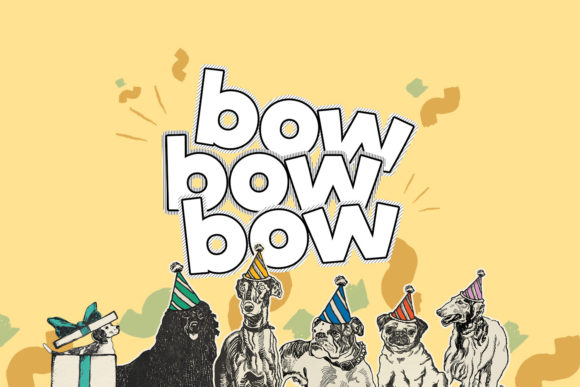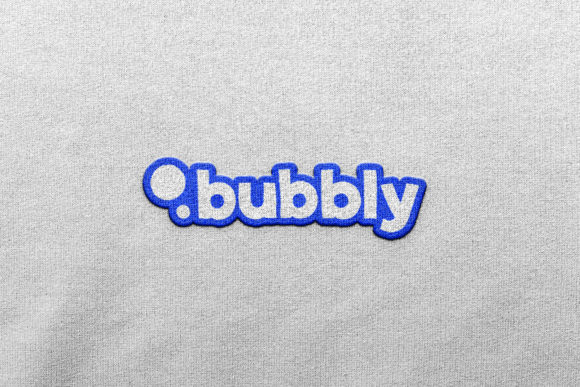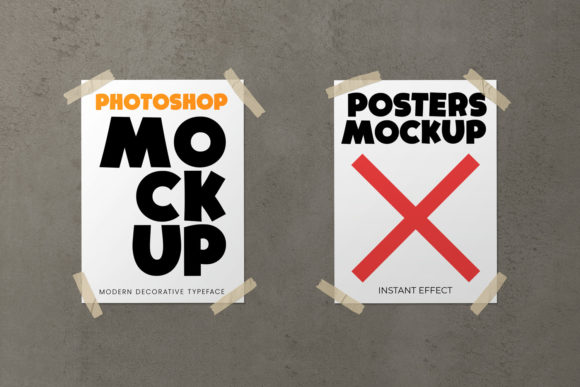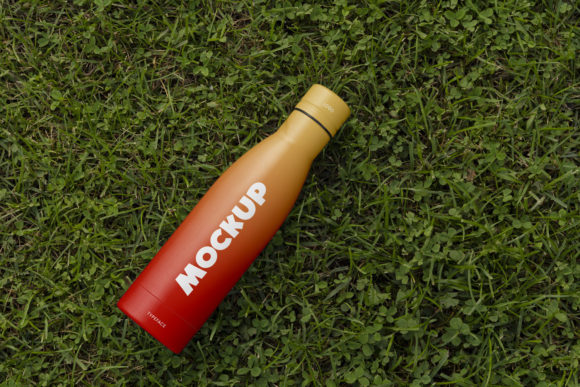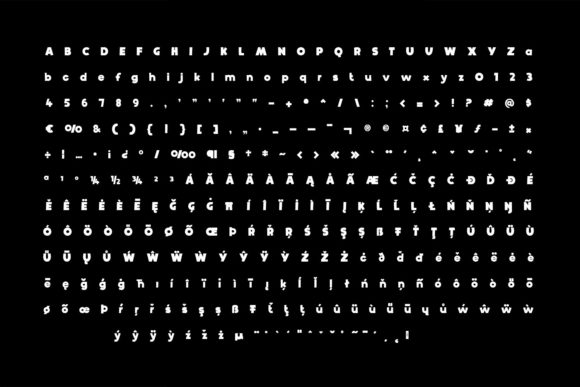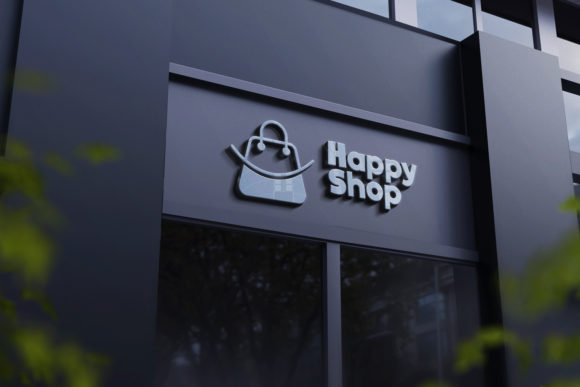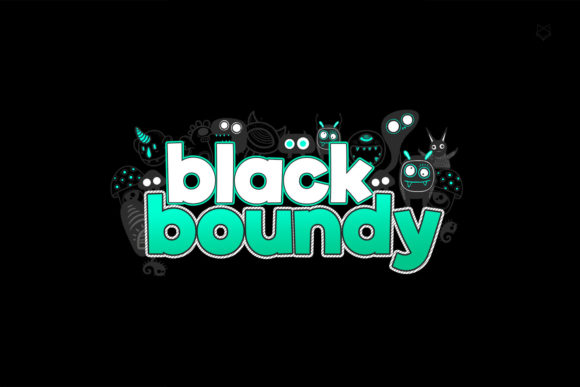
The Ultimate Display Font: A Deep Dive into Black Boundy
Ah, the elusive perfect font. You know, that one moment when you’re working on a design project, and everything is coming together – the concept, the colors, the overall aesthetic – but then, you hit a roadblock: the font just isn’t right. I recall a particularly frustrating experience with a client who wanted a bold, eye-catching logo for their new craft business. After hours of scouring font libraries, I stumbled upon Black Boundy, and it was love at first sight! ✨
An Honest Review of Black Boundy
So, what makes Black Boundy so special? Let’s dive into the good stuff and, of course, a few quirks I’ve discovered along the way.
- ✨ Bold and Beautiful: Black Boundy is a thick lettered and bold display font that makes a statement. It’s perfect for grabbing attention and adding a touch of sophistication to your designs.
- ✅ Versatile: This font is incredibly versatile and can be used for a wide range of projects, from logos and t-shirt printing to creative products and more.
- 💥 Impactful: Black Boundy is sure to make an impact in any context, whether you’re designing for digital or print.
While Black Boundy is an amazing font, there are a few things to keep in mind:
- ⚠️ Legibility at Small Sizes: Due to its bold nature, Black Boundy can become a bit tricky to read at very small sizes. Be sure to test it out at different scales to ensure it works for your project.
- 🤔 Limited Use Cases: While Black Boundy is incredibly versatile, it’s not the best choice for body text or long-form content. Stick to using it for headlines, titles, or short phrases.
While Black Boundy is an amazing font, you might want to explore other options for your design projects. Here are a few similar fonts and their personalities:
- Rockwell: A classic, geometric font with a similar bold feel to Black Boundy. Use it for headlines, titles, and emphasis.
- Museo: A sleek, modern font with a slightly more refined edge. Ideal for luxury brands, high-end products, or sophisticated designs.
- Anton: A clean, sans-serif font with a similar industrial feel to Black Boundy. Great for tech, innovation, or startup brands.
- Bebas Neue: A bold, condensed font with a similar edgy vibe to Black Boundy. Perfect for attention-grabbing headlines and titles.
The Backstory Behind Black Boundy
While the origins of Black Boundy are shrouded in mystery, it’s clear that this font was designed with one goal in mind: to make a bold statement. Imagine a designer, fueled by creativity and a passion for typography, pouring their heart and soul into crafting the perfect display font. And thus, Black Boundy was born! 🎉
Q: What is Black Boundy best used for?
A: Black Boundy is perfect for bold, eye-catching designs like logos, t-shirt printing, creative products, and more.
Q: Can I use Black Boundy for body text?
A: While Black Boundy is an amazing font, it’s not the best choice for body text or long-form content. Stick to using it for headlines, titles, or short phrases.